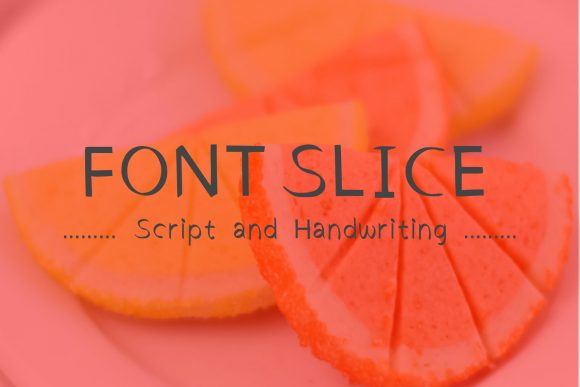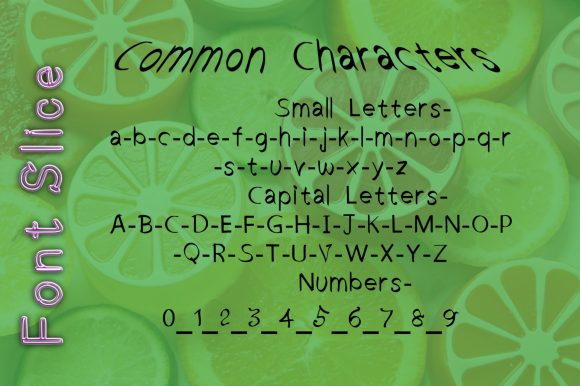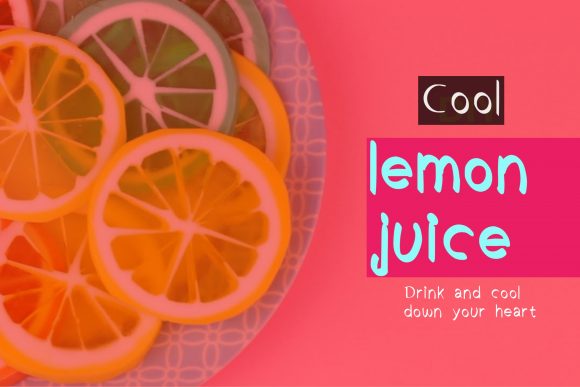
About Font Slice Font
Font Slice is a minimal and neat handwritten font. It can easily be matched to an incredibly large set of projects, so add it to your creative ideas and notice how it makes them stand out!